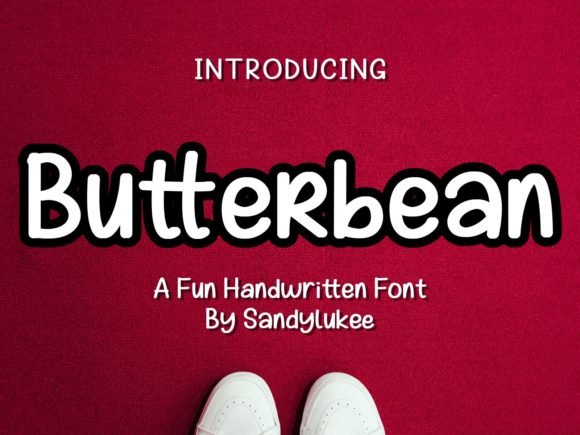
The Perfect Addition to Your Crafty Creations: Butterbean Font
Have you ever been in the midst of a creative project, frantically searching for the perfect font to give it that extra oomph? You’ve scrolled through endless options, trying to find something that truly captures the essence of your design. But then, it hits you – the perfect font that elevates your entire project and leaves a lasting impression.
Introducing Butterbean Font, a thick and tasty display font that adds a bold vibe to any craft. This versatile font is perfect for adding a touch of personality to your designs, from wedding invitations to social media graphics. With its unique, playful style, Butterbean Font is a valuable asset for designers looking to add a little extra flair to their work.
Butterbean Font Key Features
- Unique Characteristics: The Butterbean font is known for its playful, whimsical feel, with rounded shapes and organic lines that evoke a sense of friendliness and approachability.
- Font Style: The font is a sans-serif design, making it highly legible and suitable for a wide range of applications, from body text to headlines.
Designer Review: Butterbean Font
Overall, I think Butterbean Font is a solid choice for those looking for a fun, playful font. ✨ I love how it captures the whimsy and charm of a handwritten font without feeling too sloppy or unrefined. The font’s rounded edges and soft lines give it a friendly, approachable feel that’s perfect for children’s books, greeting cards, or other projects where you want to convey a sense of warmth and personality.
One of the things I appreciate most about Butterbean Font is its versatility. ✨ It works well in both digital and print formats, and the font’s varied line weights make it easy to use in a range of contexts. I also appreciate the font’s wide range of language support, which makes it a great choice for projects that need to reach a global audience.
- ⚠️ The font may not be the best choice for formal or professional projects, as its playful nature can come across as immature or unprofessional in some contexts.
- ⚠️ The font’s rounded edges can make it difficult to read in certain situations, such as in small font sizes or when used in conjunction with other fonts that have strong lines or sharp edges.
Overall, I think Butterbean Font is a great choice for designers who want to add a touch of whimsy and personality to their projects. With its wide range of language support, versatile line weights, and friendly feel, it’s a font that’s sure to please.
Tips for Getting the Most Out of Butterbean Font
For best results, use the Butterbean font in combination with other playful and whimsical elements, such as illustrations and graphics. Experiment with different font sizes and styles to create a visually appealing design.
The Butterbean font is ideal for children’s books, nursery decor, and other projects that require a playful and whimsical touch. It’s also great for creating eye-catching titles and headings for blog posts and social media graphics.